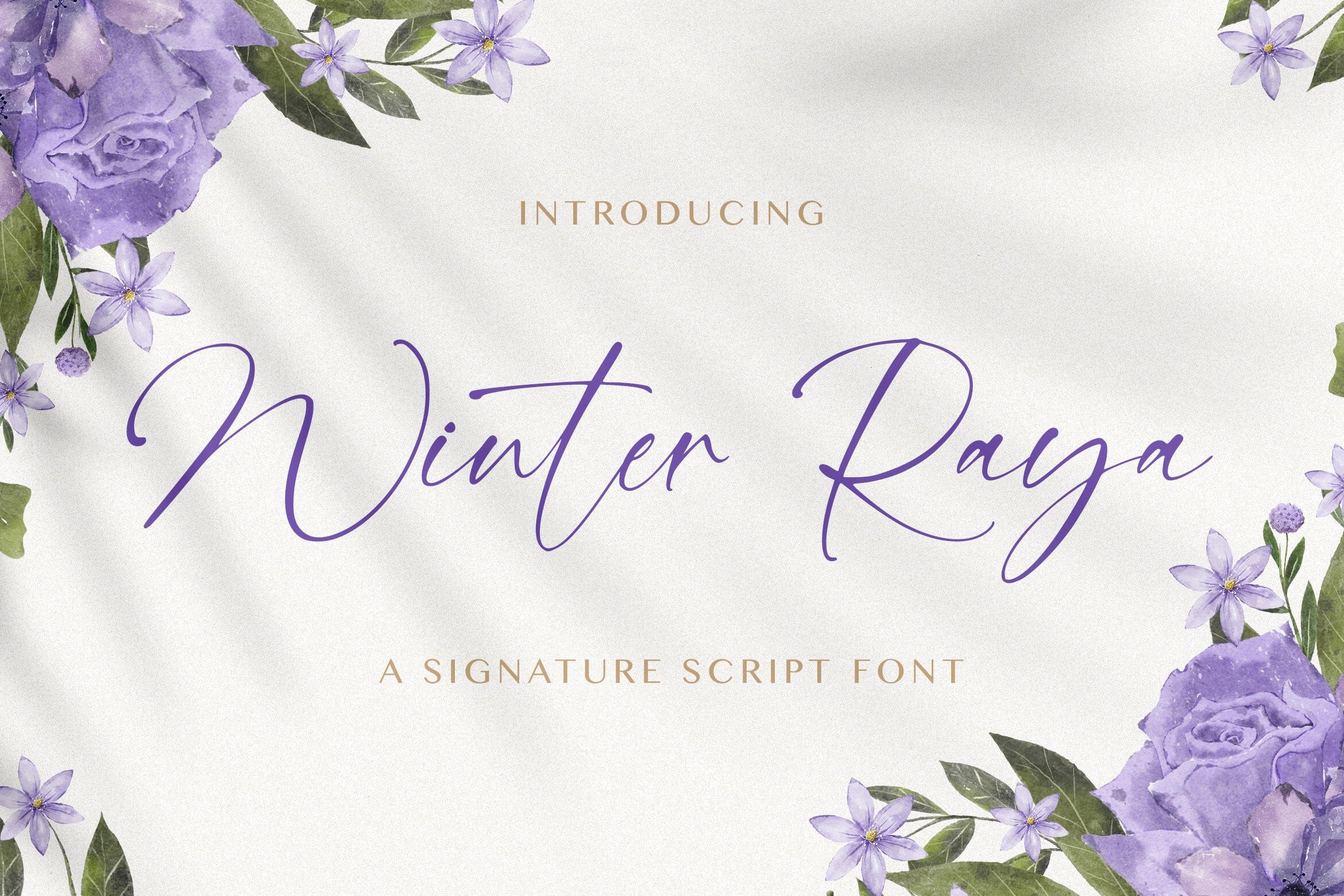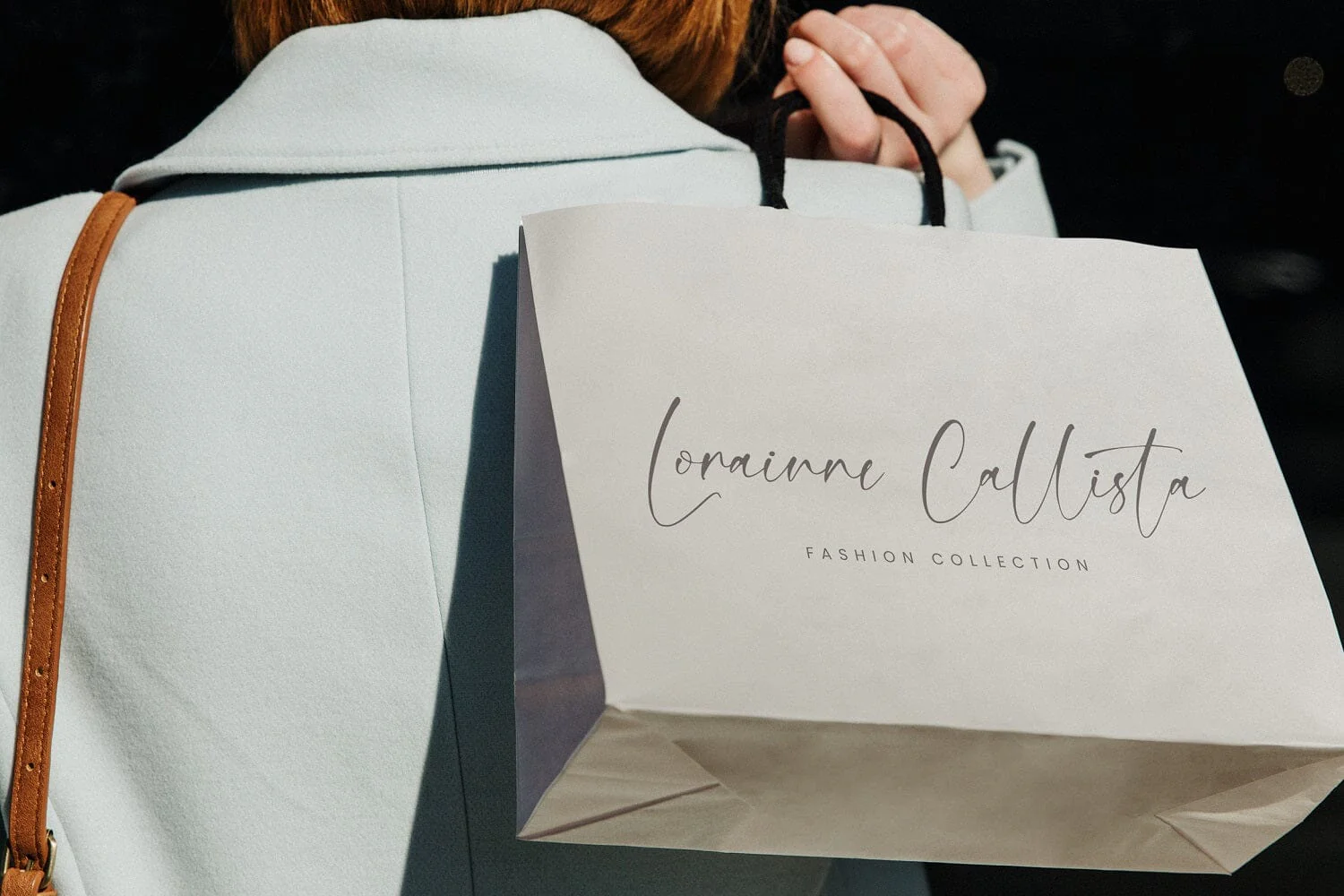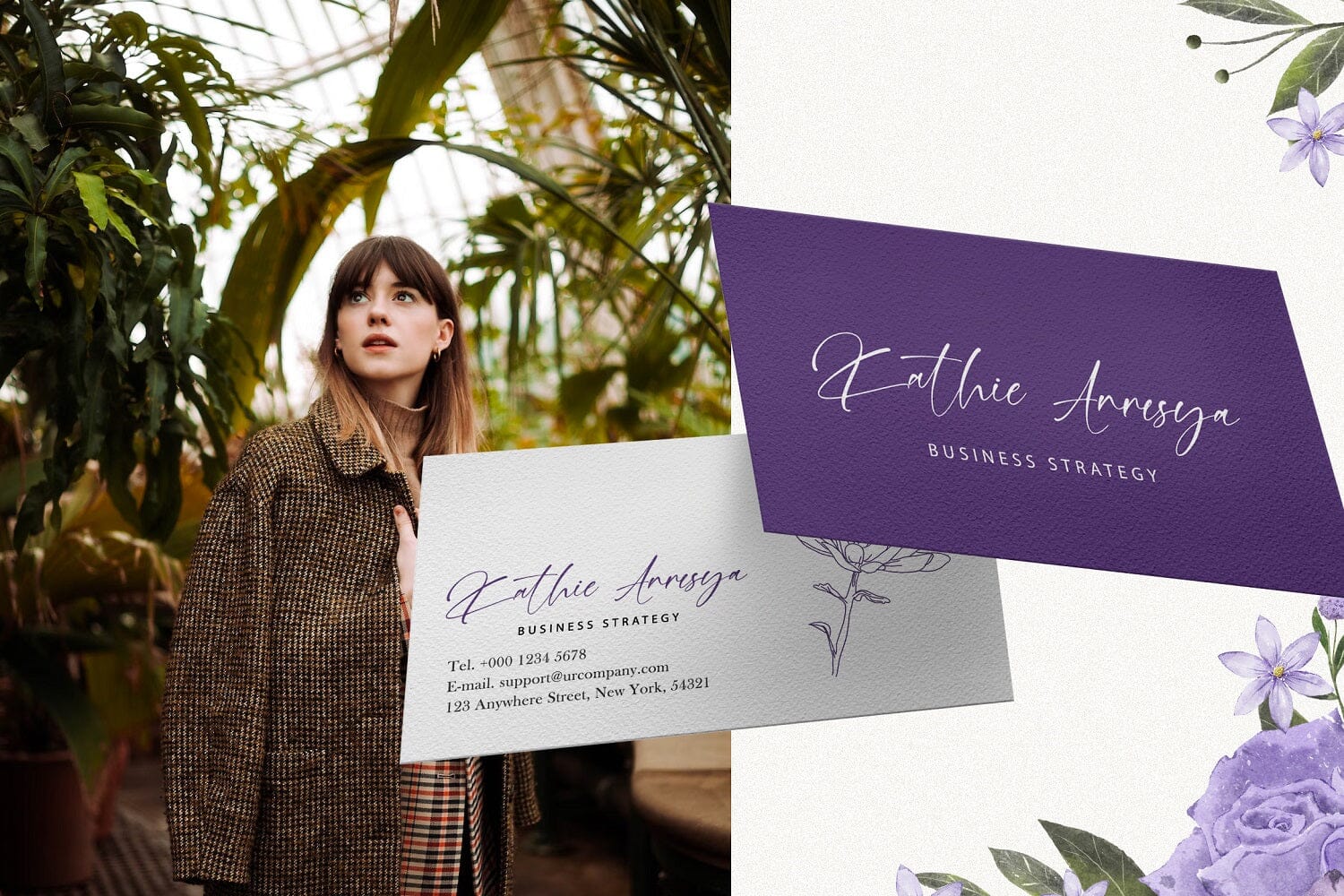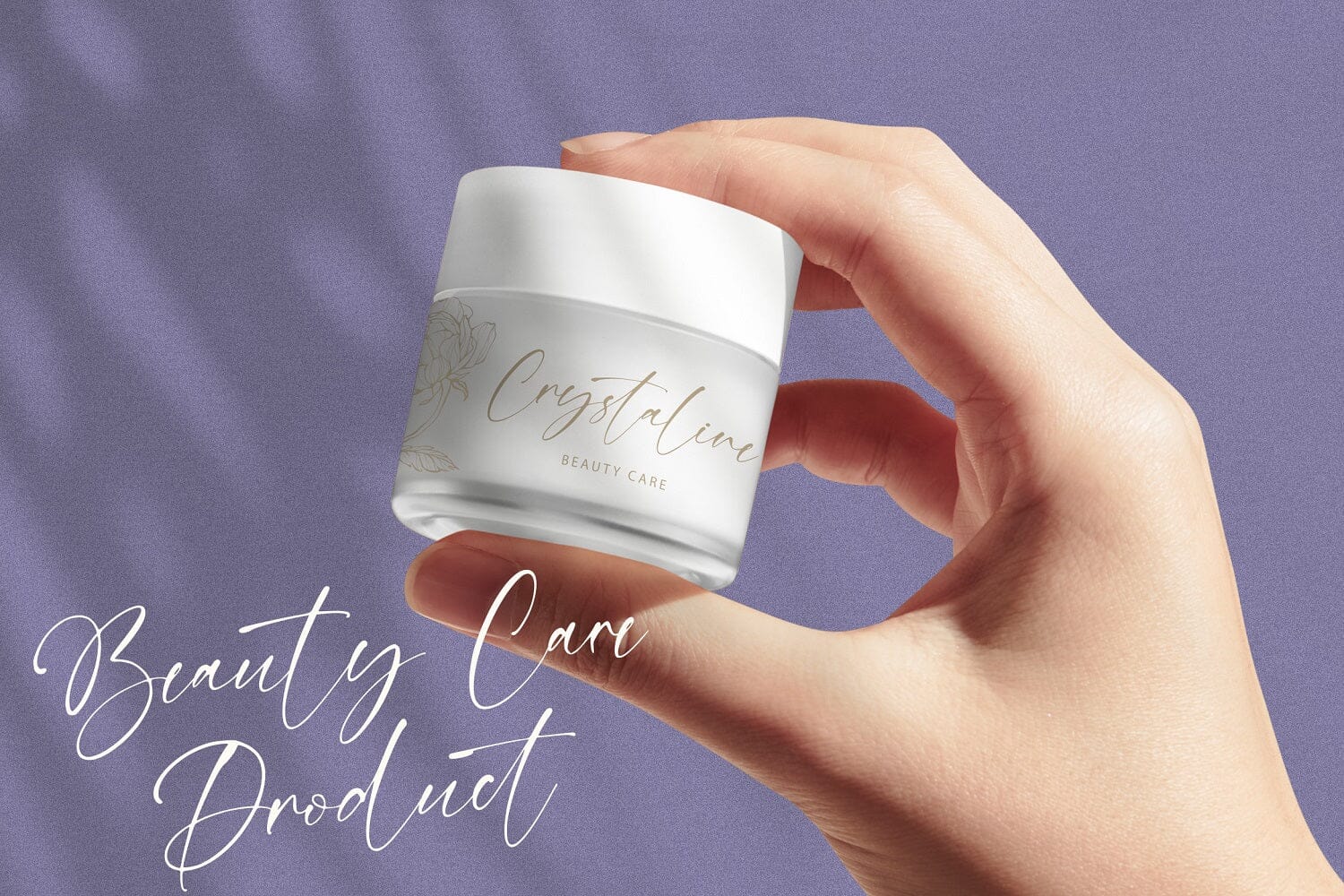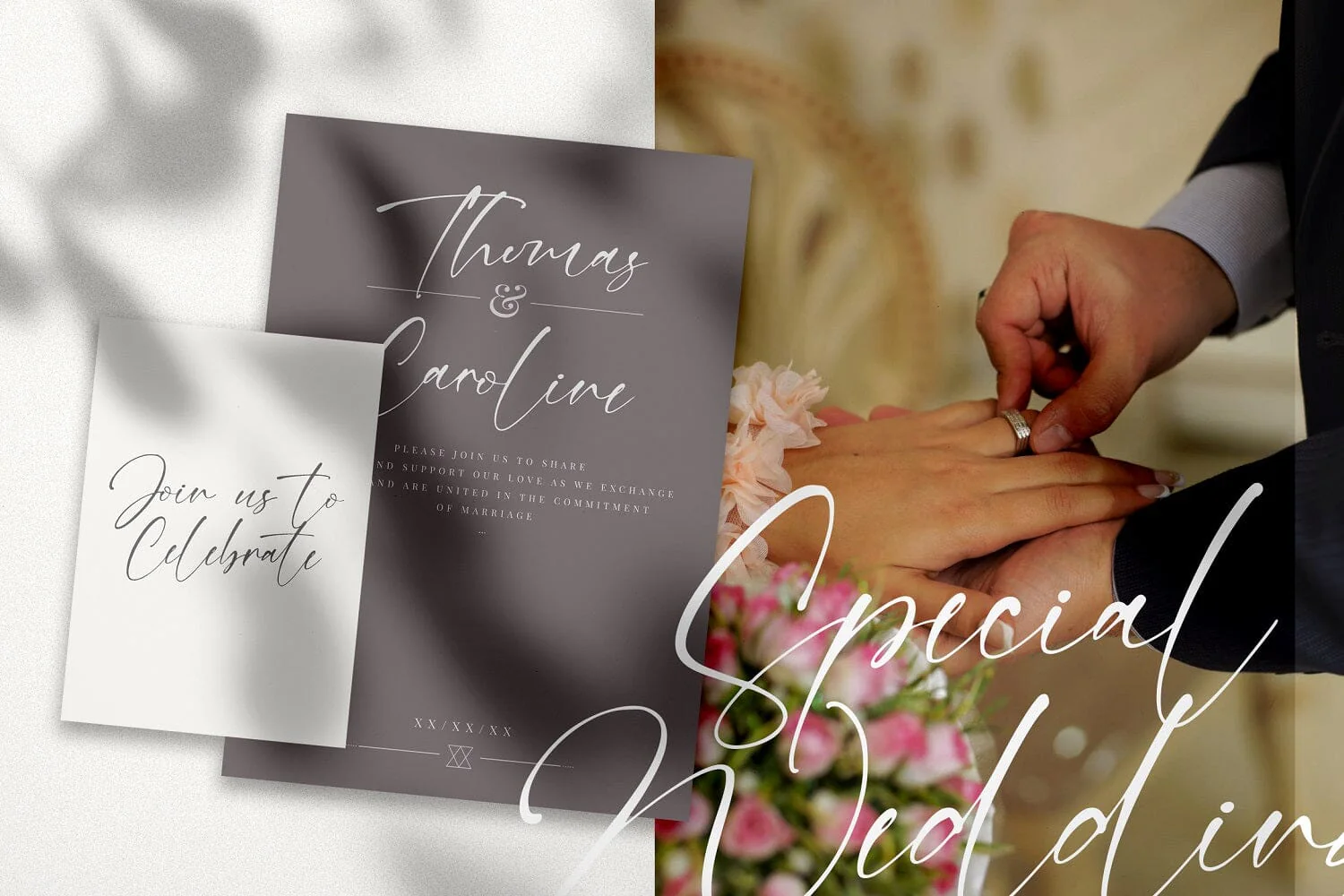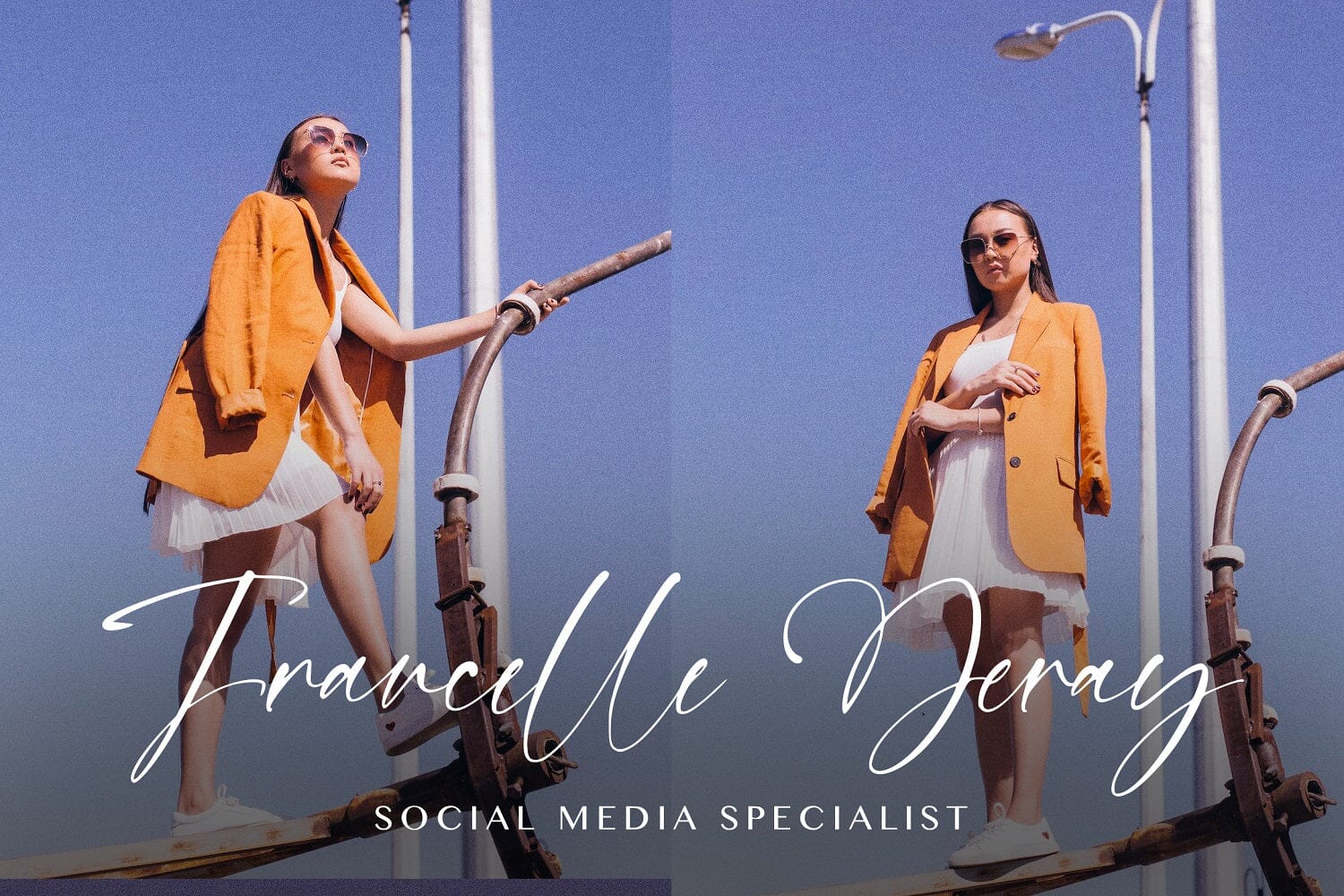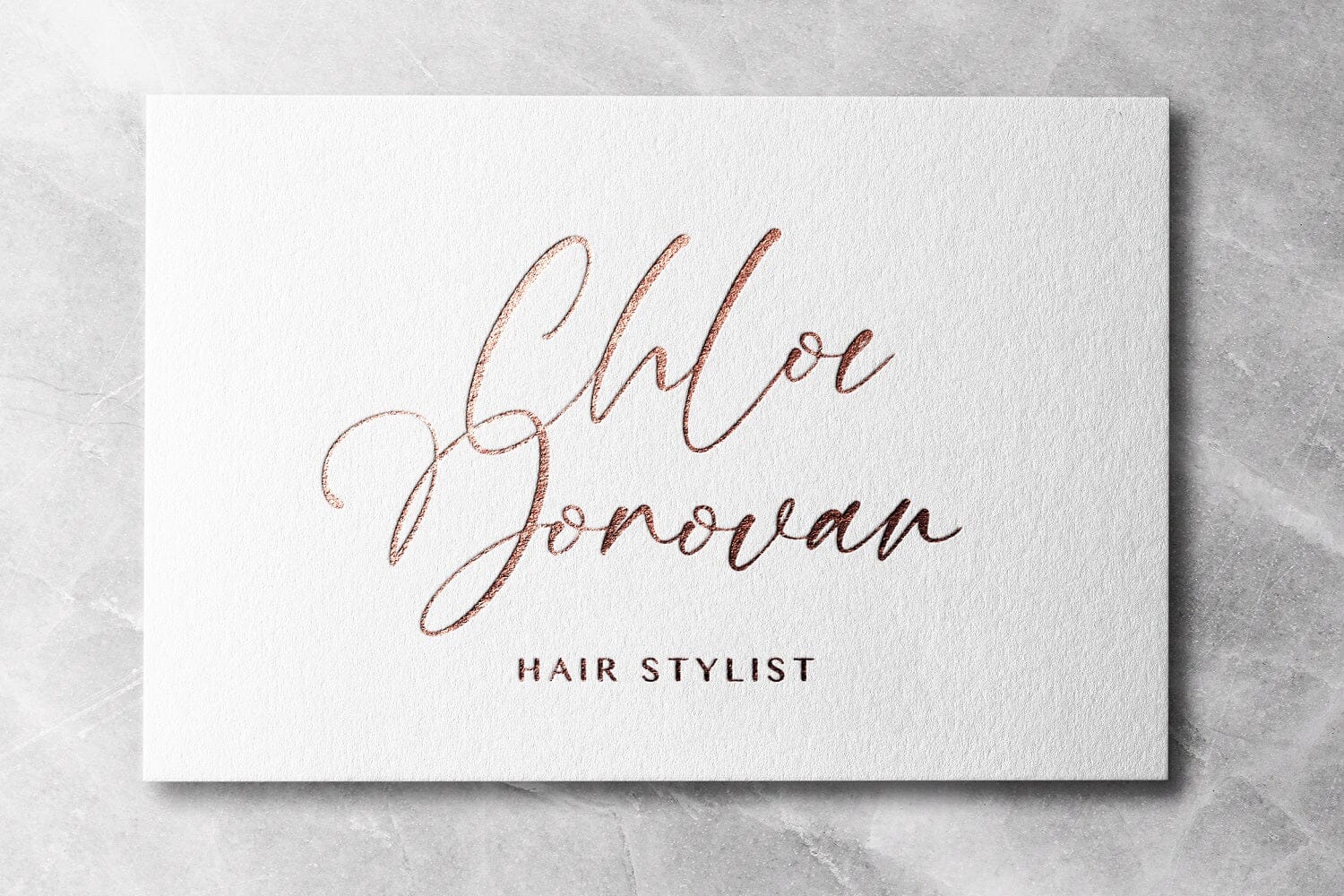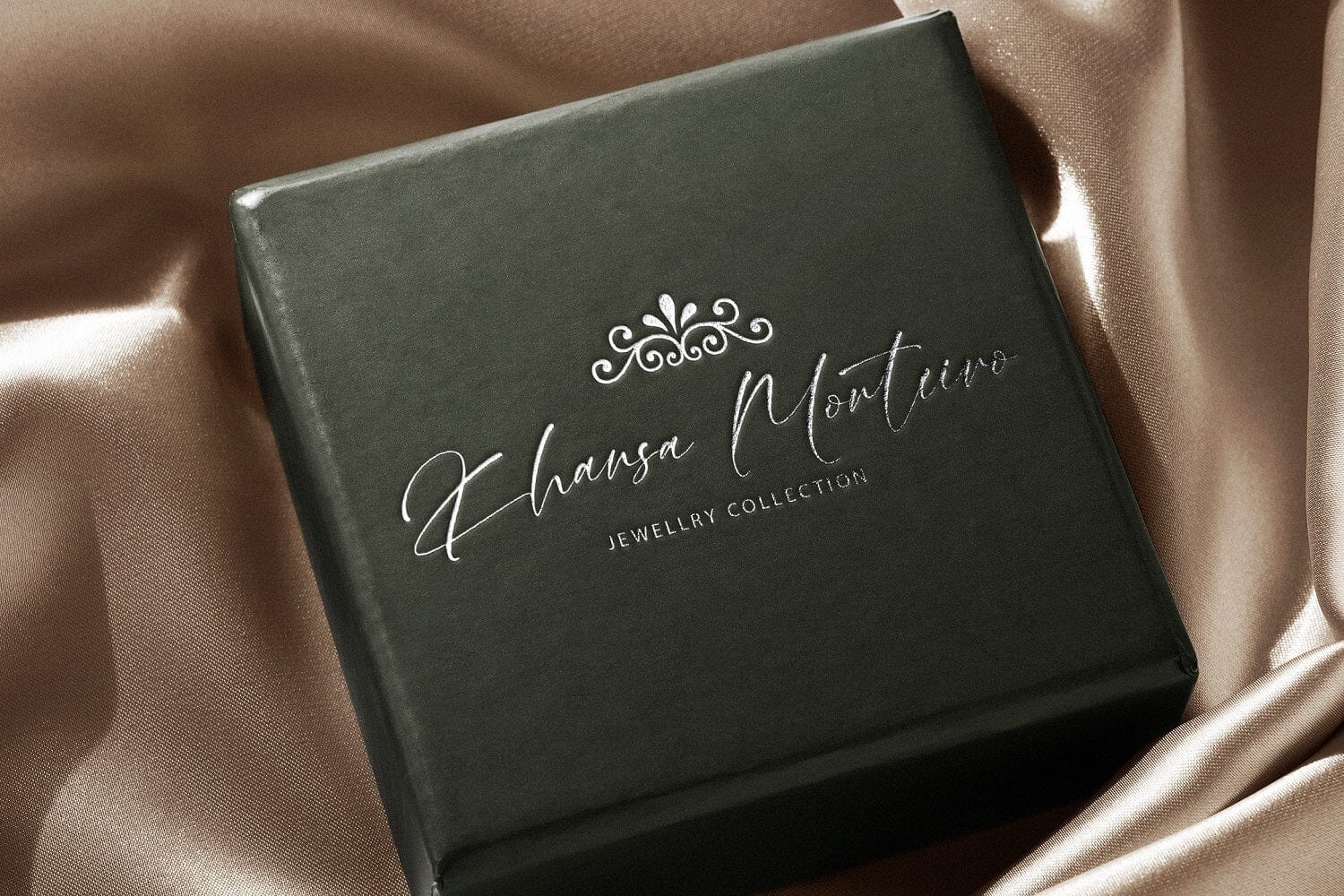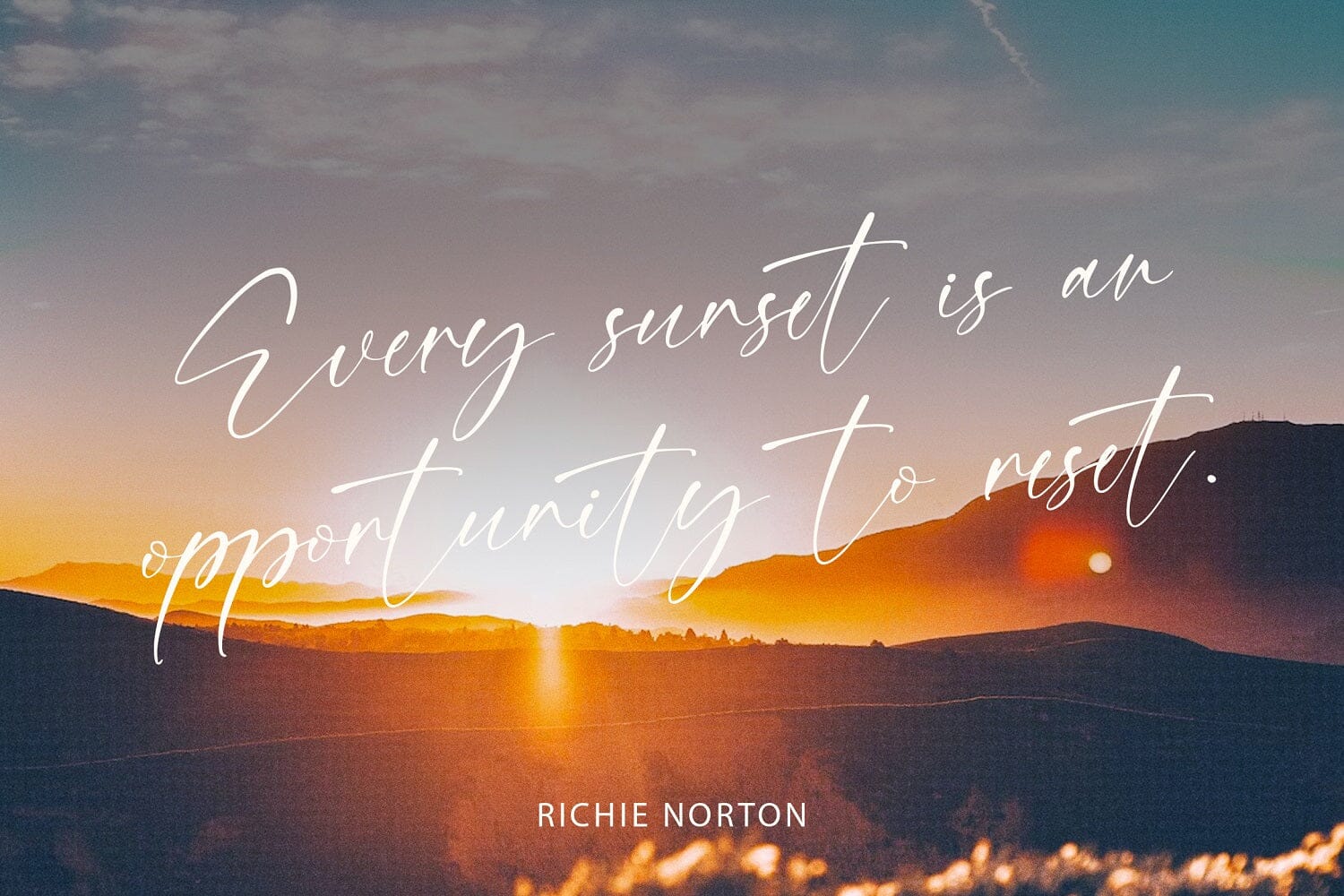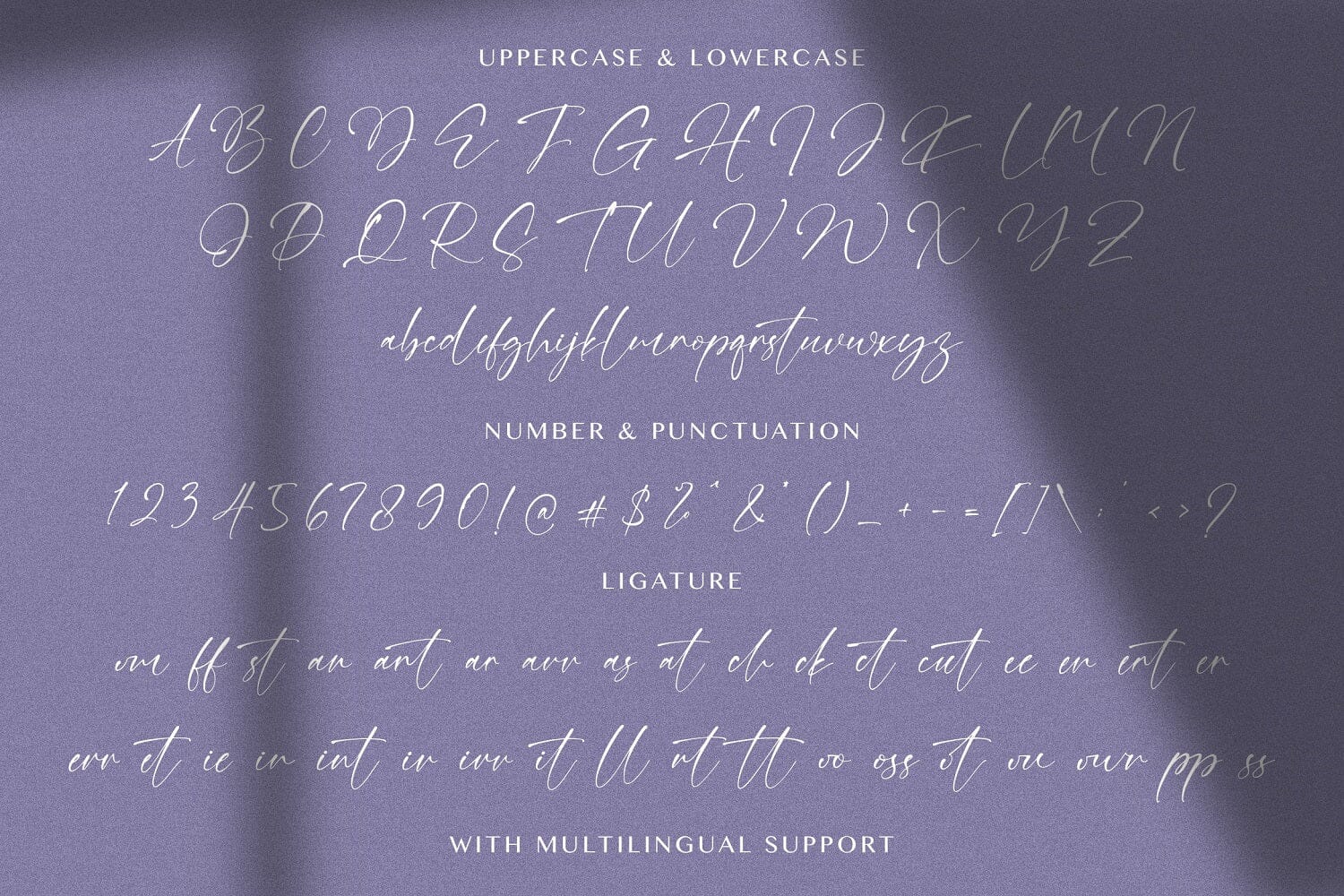
Winter Raya - Signature Font
Introducing Winter Raya – Signature Font
Winter Raya is a delicate, elegant and flowing handwritten signature script font. It has beautiful and well balanced characters and as a result, it matches a wide pool of designs. Add it to your most creative ideas and notice how it makes them come alive!
Introducing Winter Raya – Signature Font
Winter Raya is a delicate, elegant and flowing handwritten signature script font. It has beautiful and well balanced characters and as a result, it matches a wide pool of designs. Add it to your most creative ideas and notice how it makes them come alive!